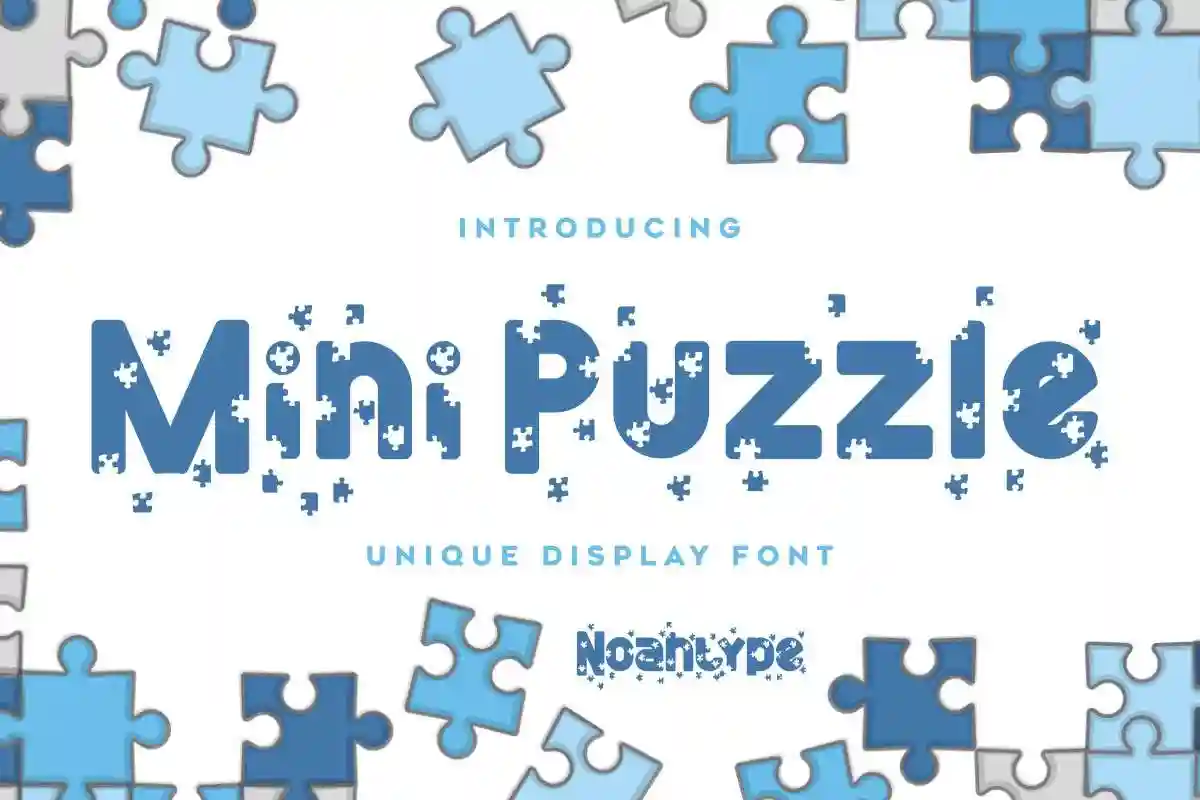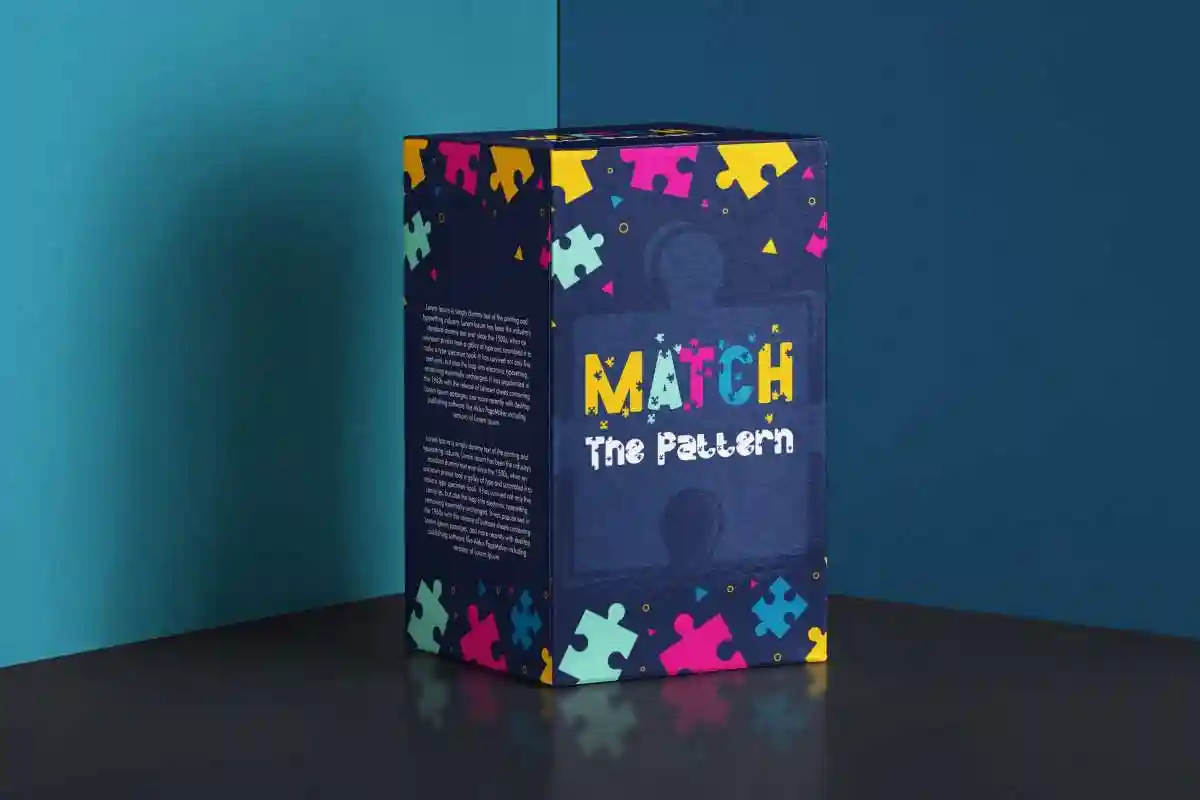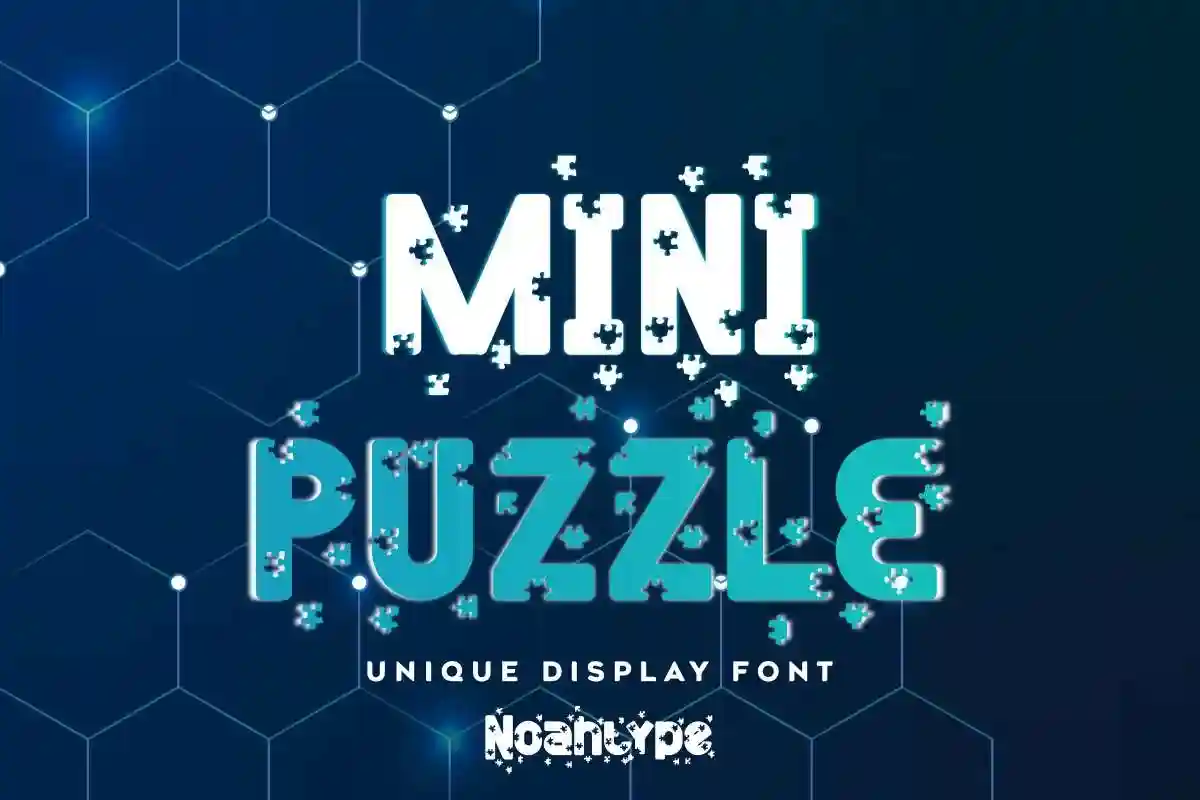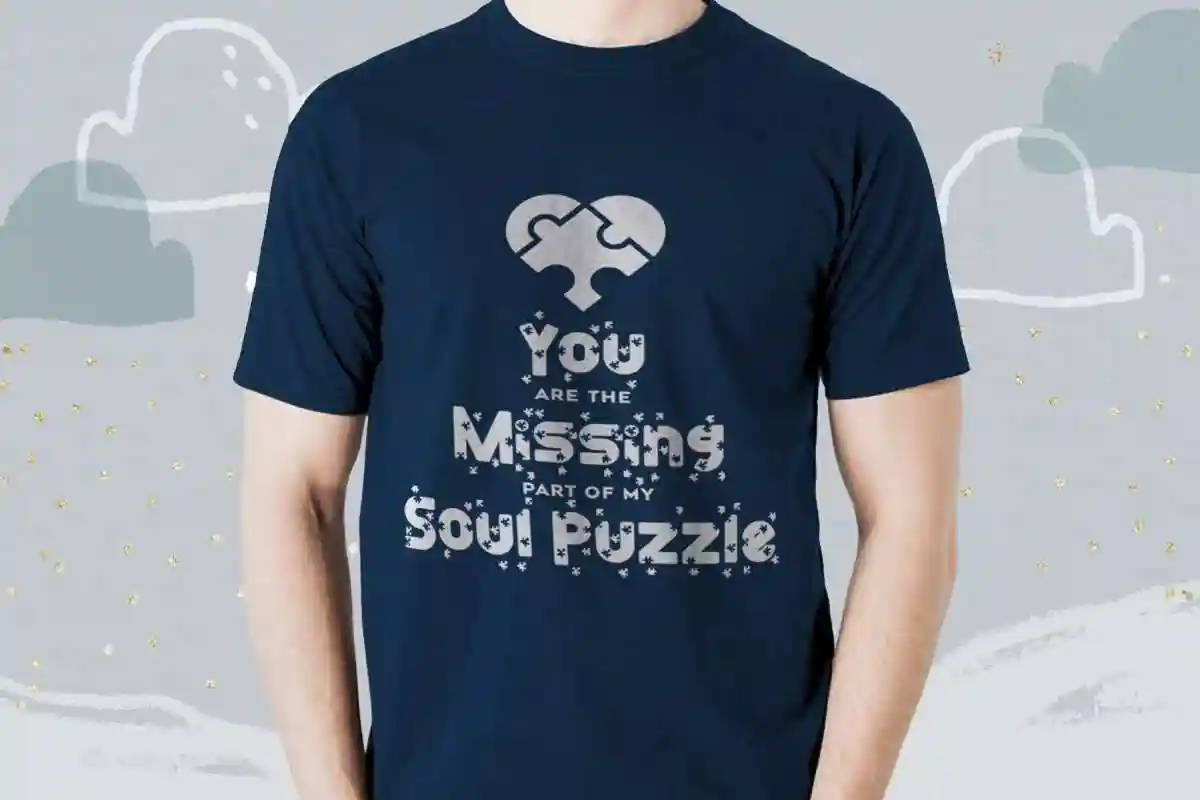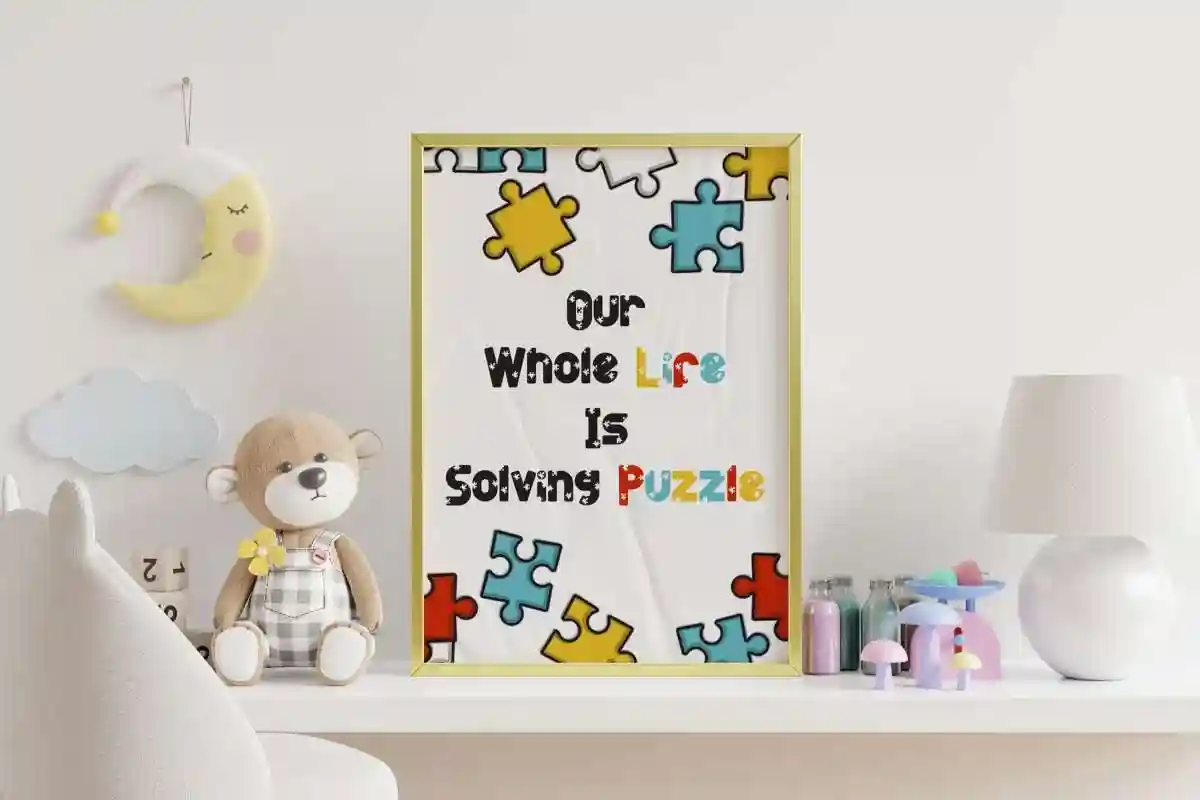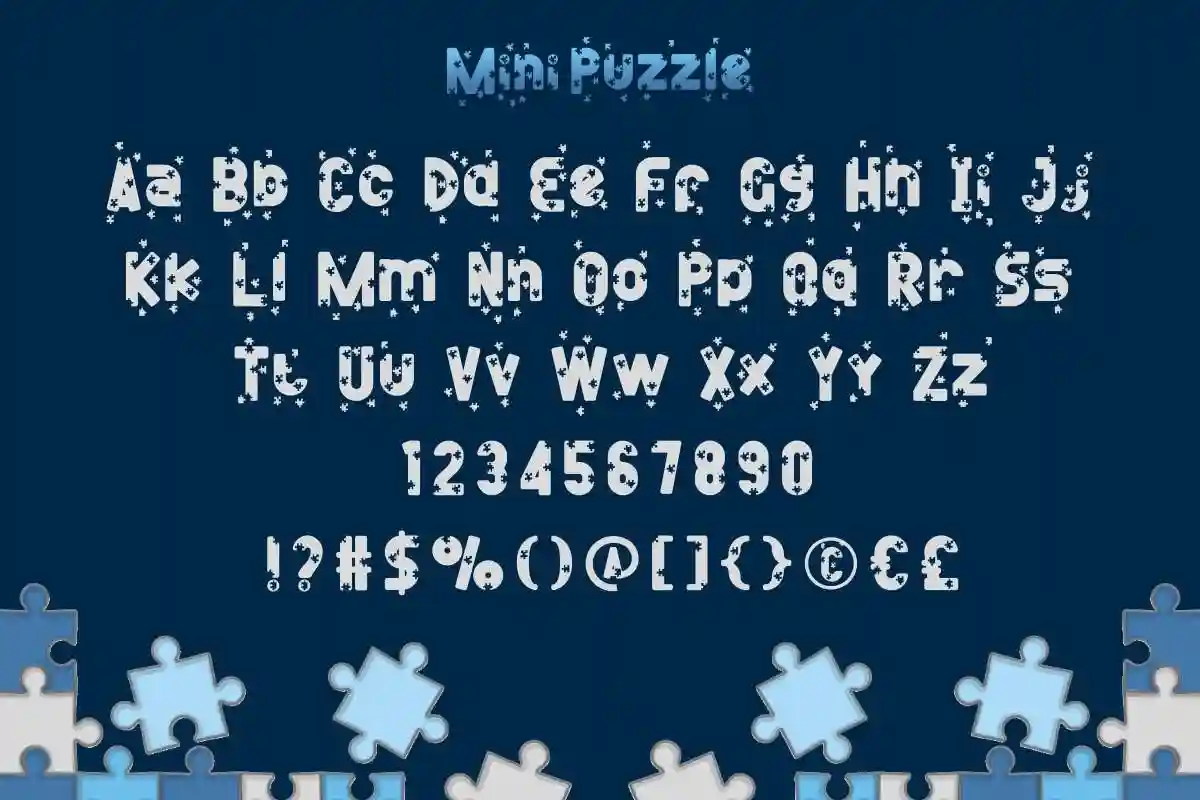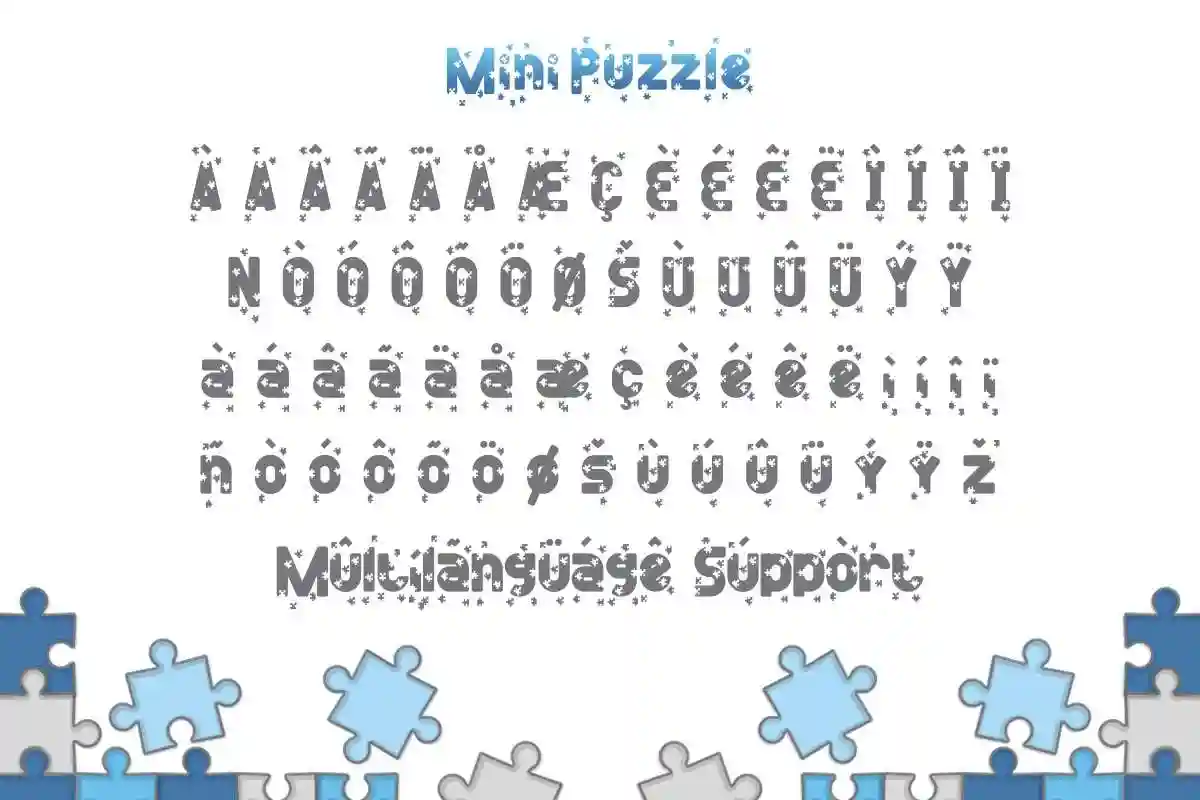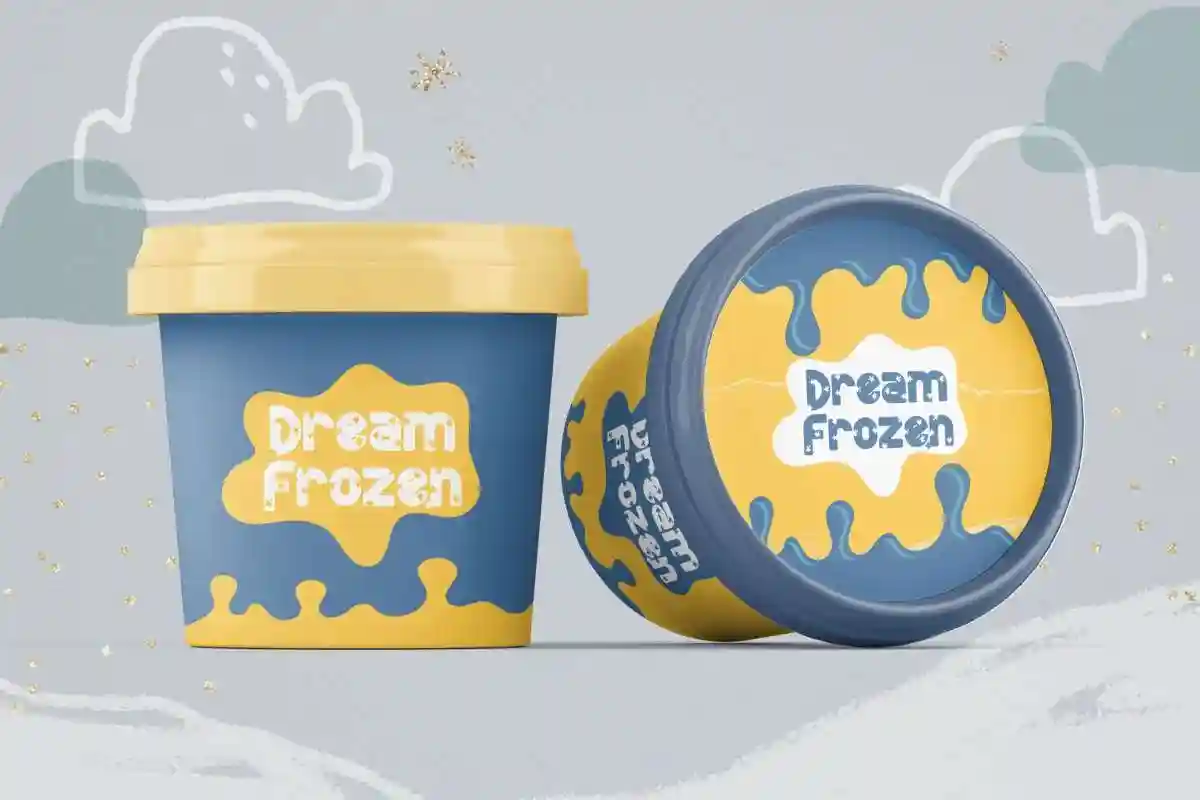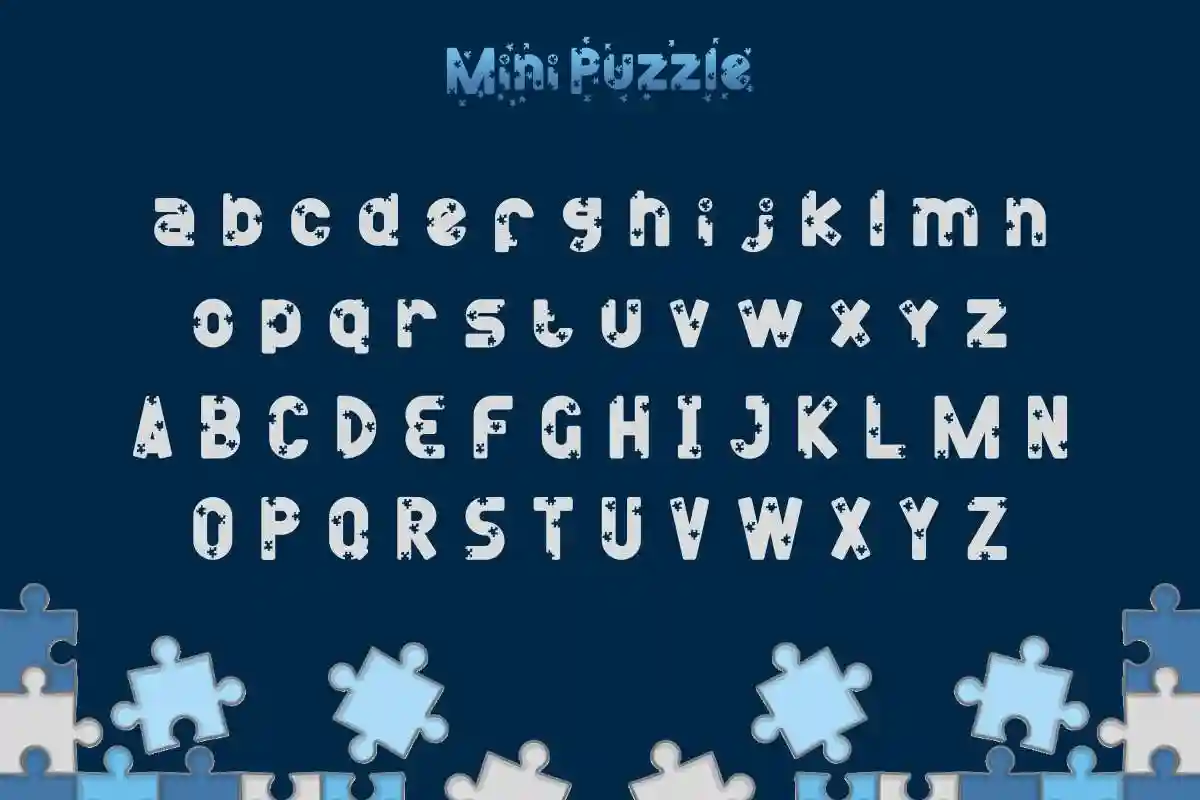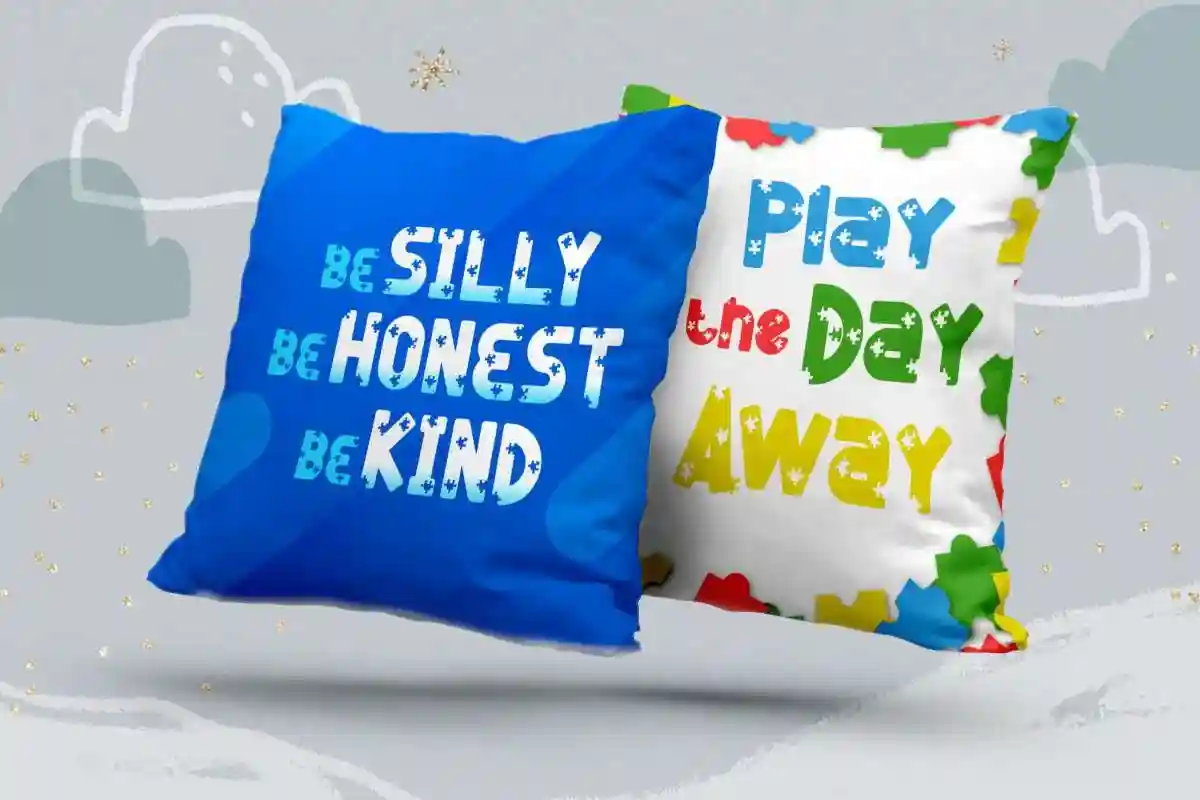
Mini Puzzle Font
Mini Puzzle Font is a fun display font with unique and exclusive shape styles : Puzzles Game. This fancy font has unique style that wont be found anywhere else. The puzzles on the letters make the styles looks playful but still easily to read. It will be amazing for many business/projects category : games, movies, events, party, toys brands etc
Mini Puzzle Font It includes set of Uppercase and Lowercase, Numerals , Punctuation and also supports multilingual languages (including multiple currency symbols). Here’s what’s Included on the package :